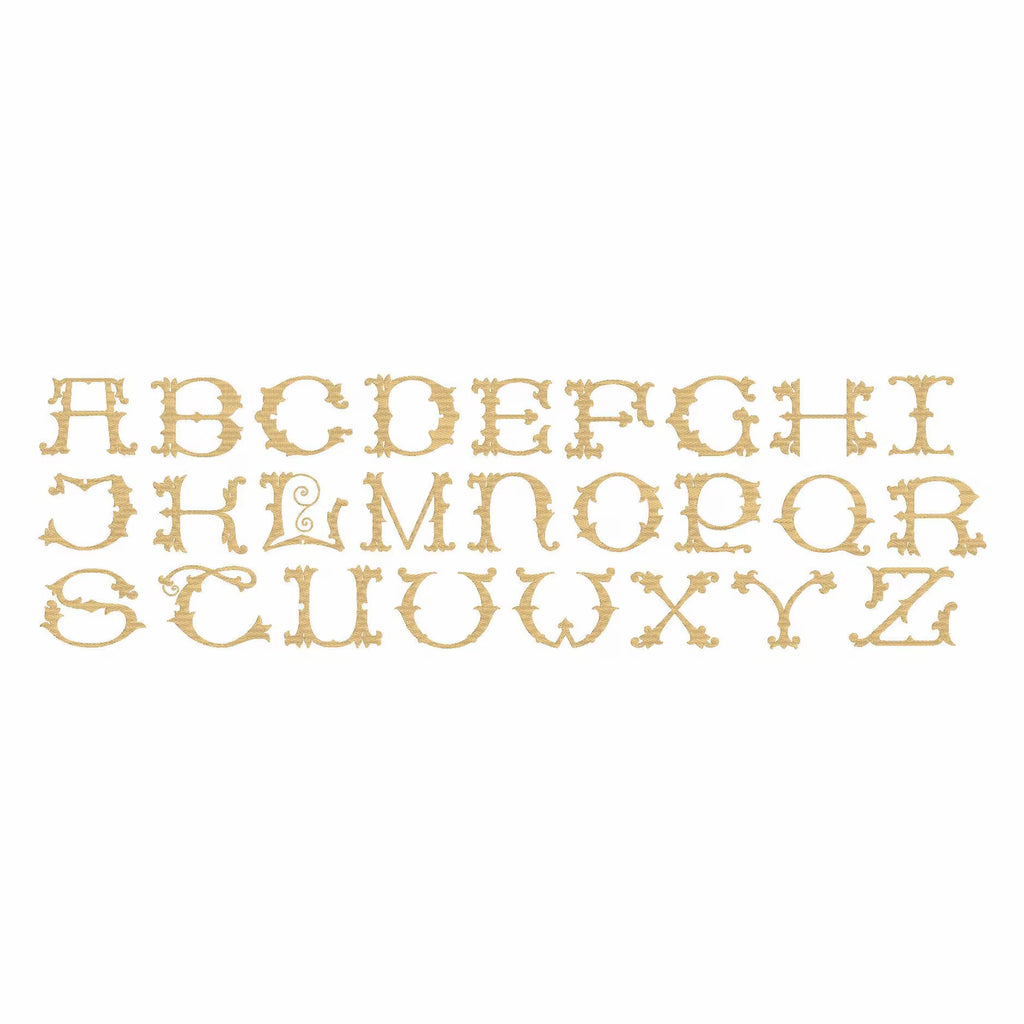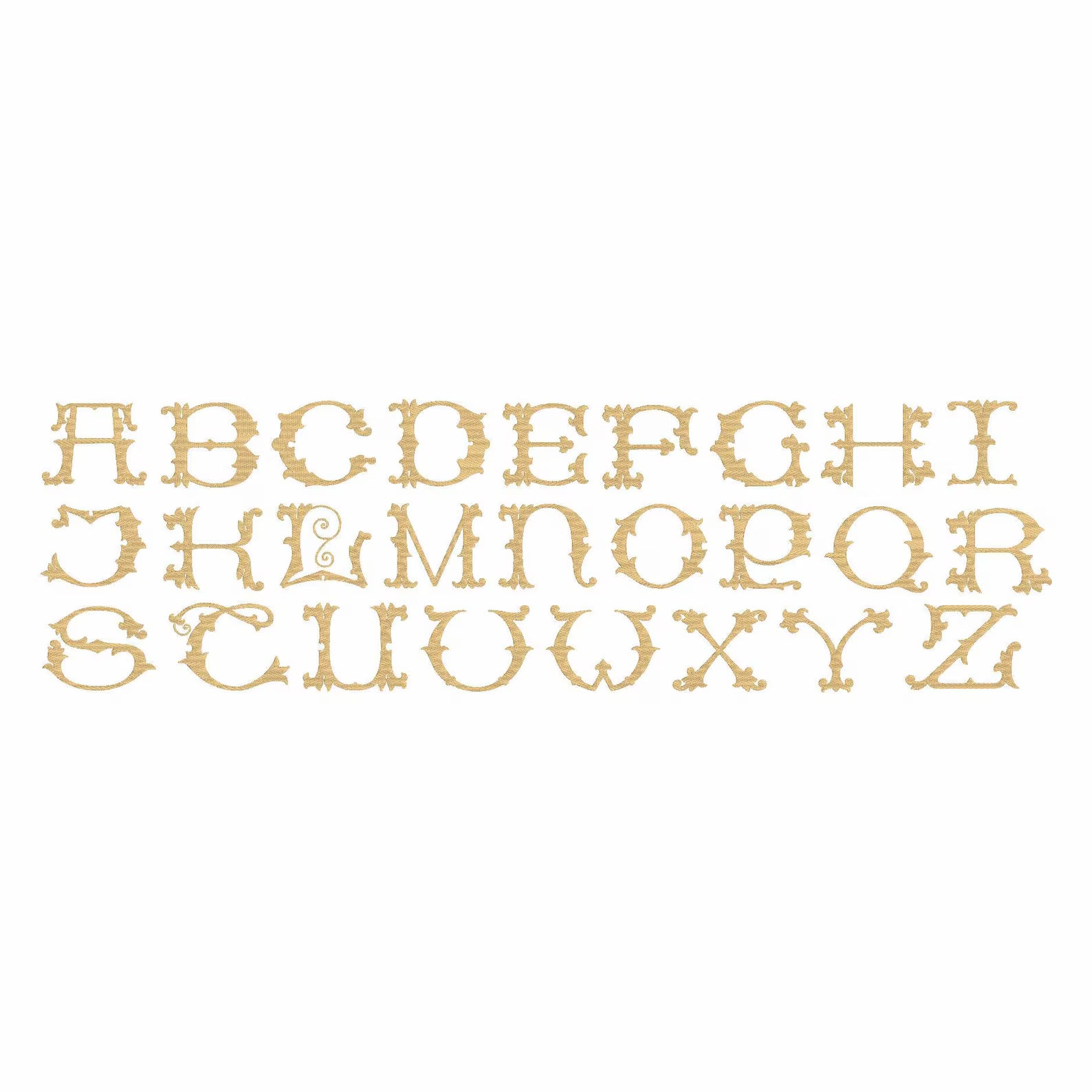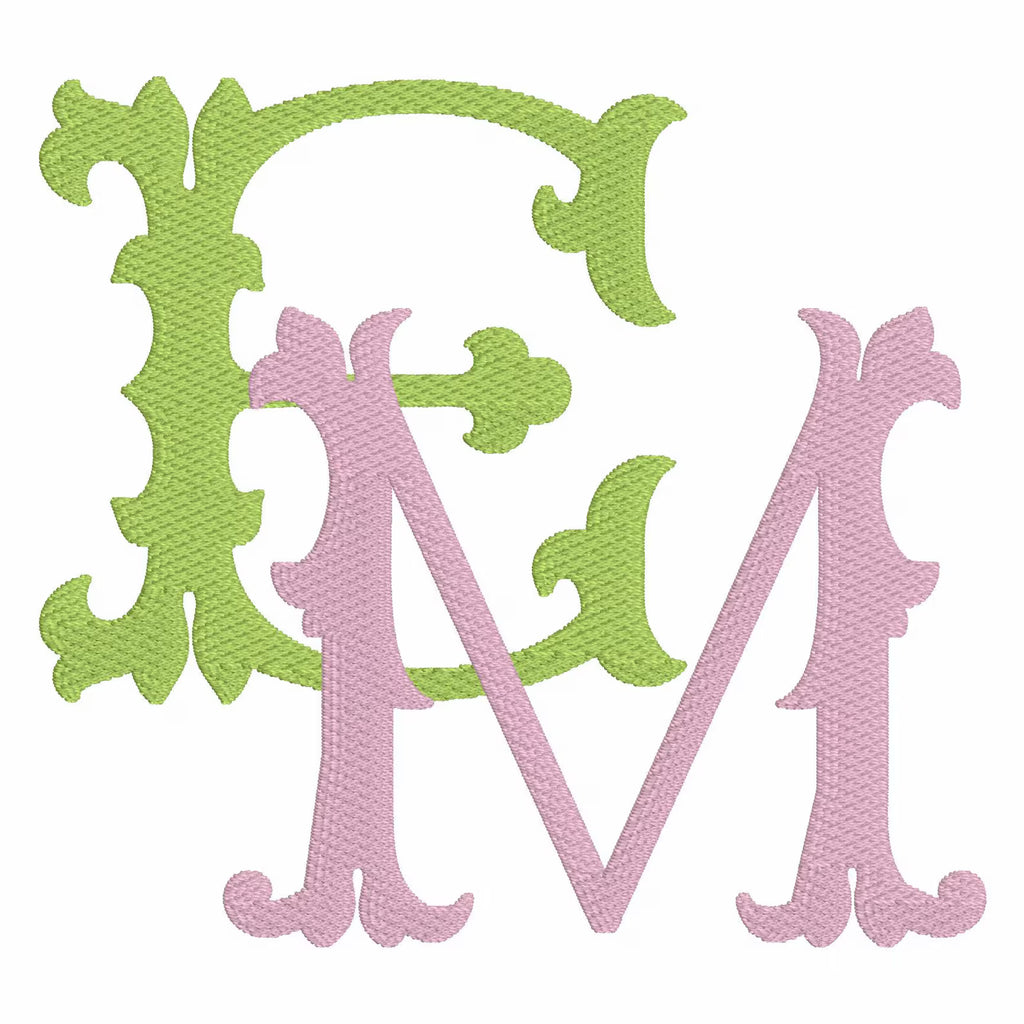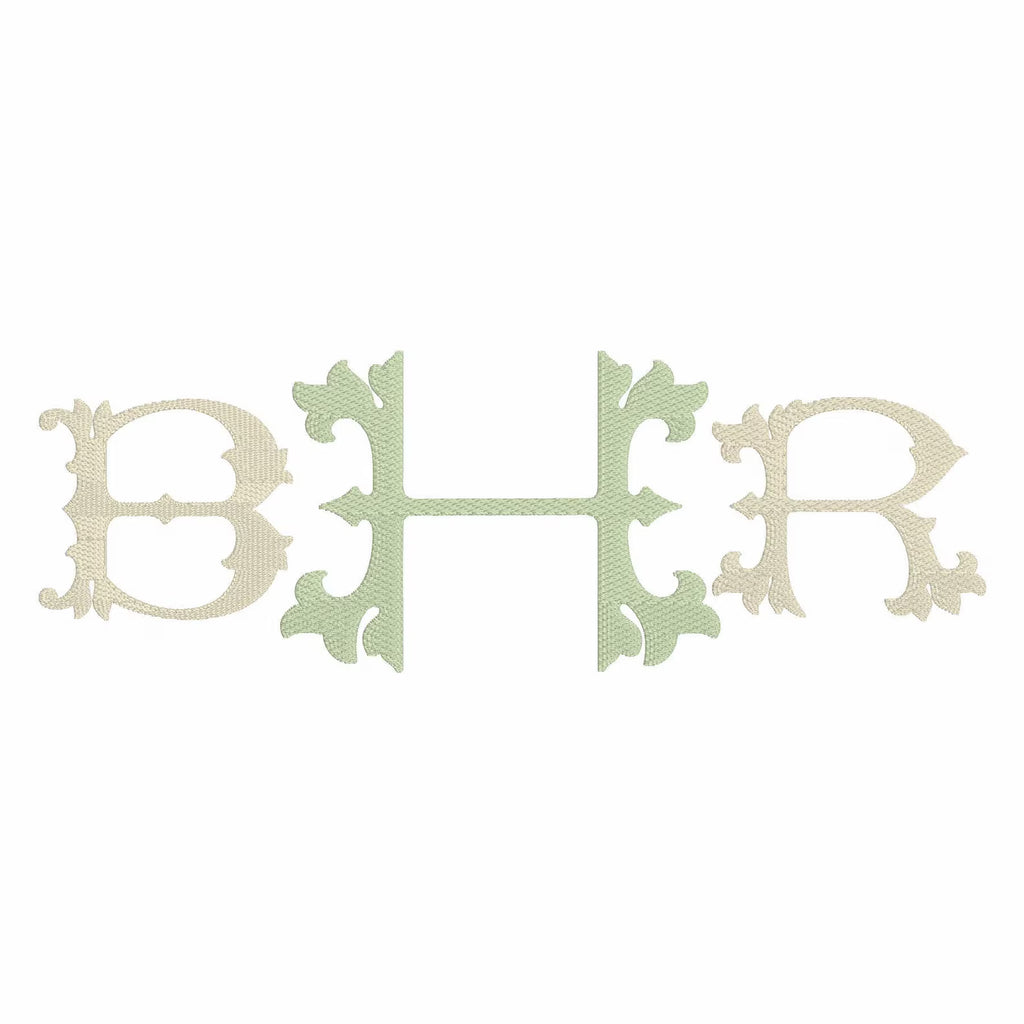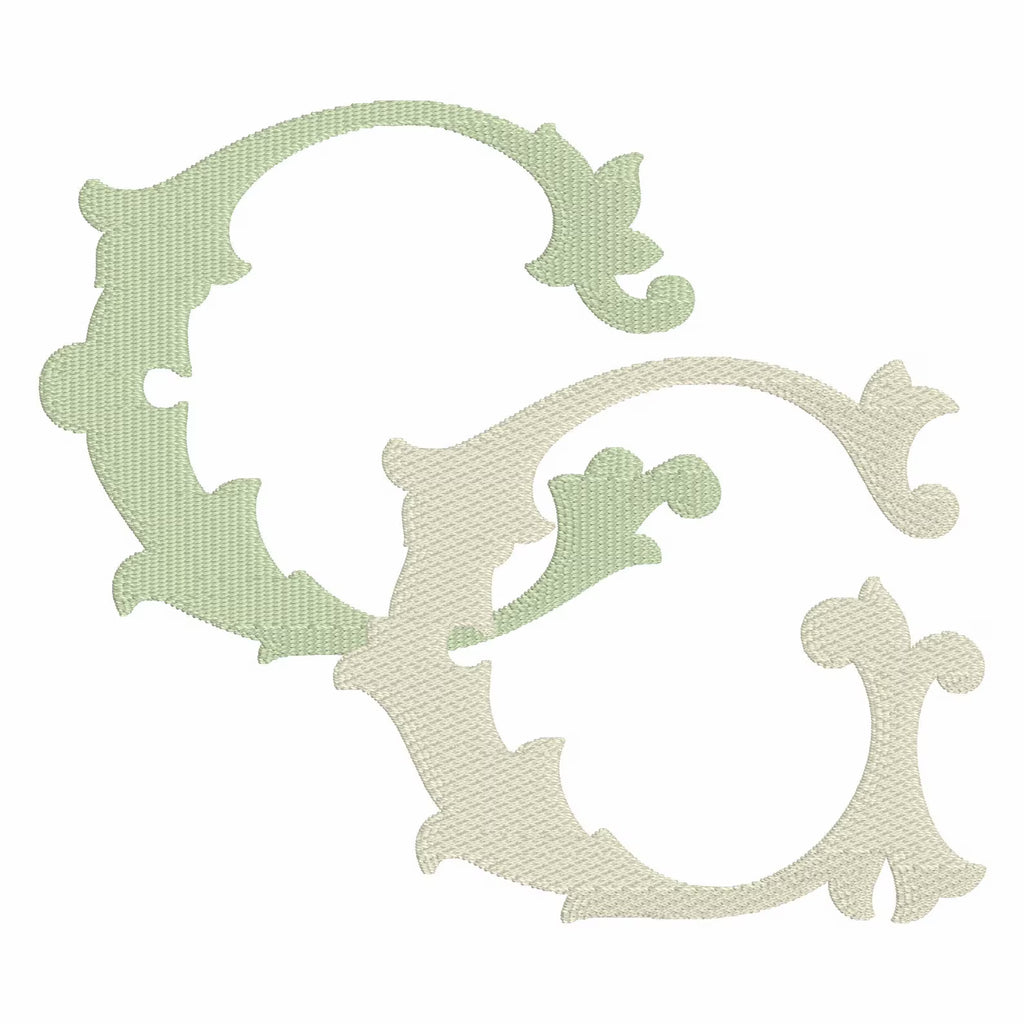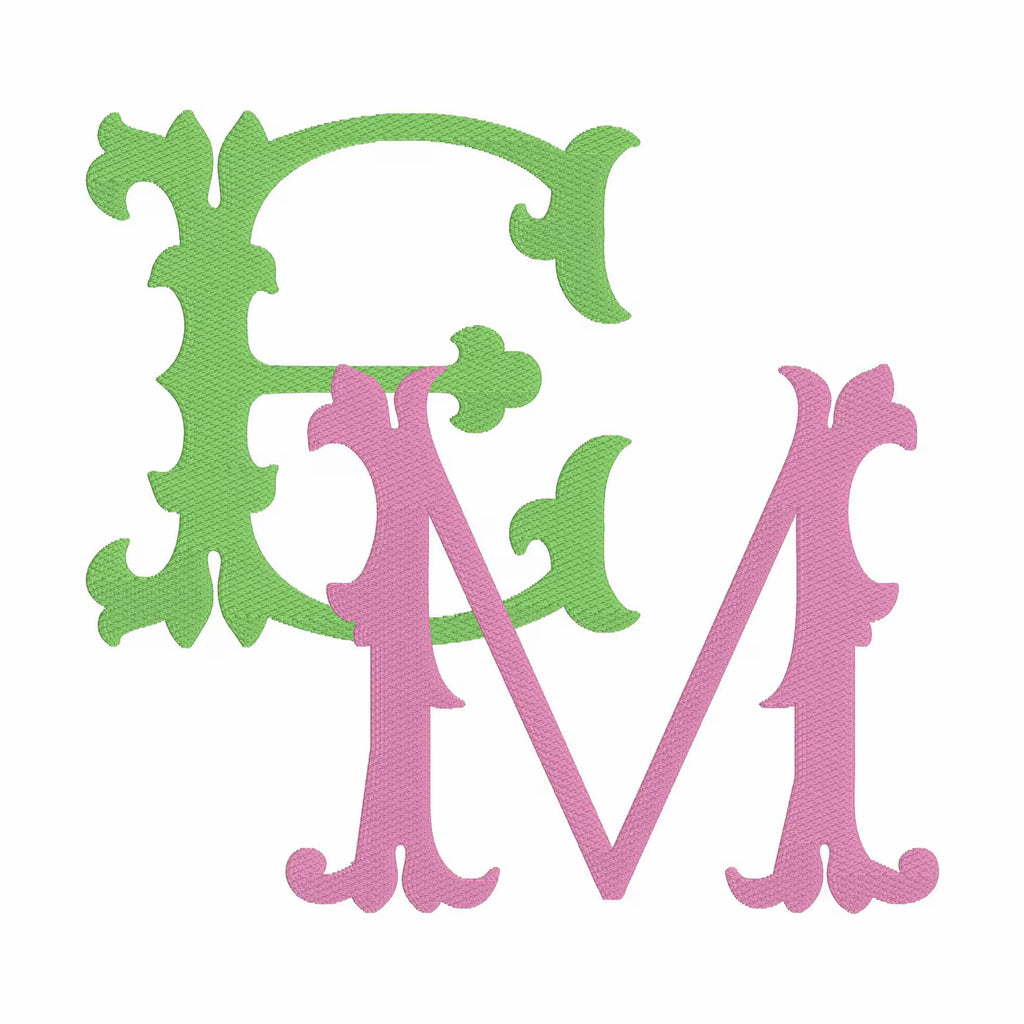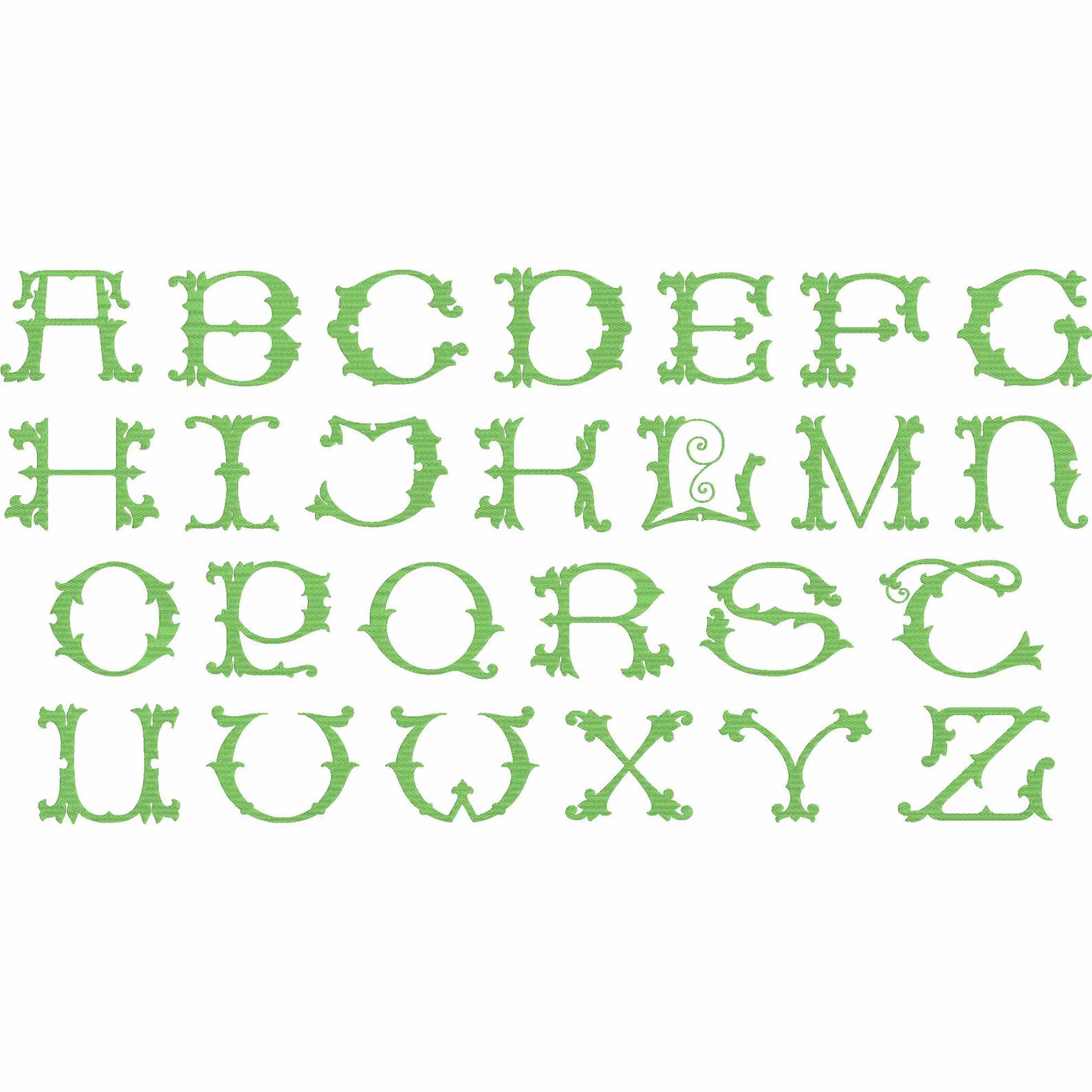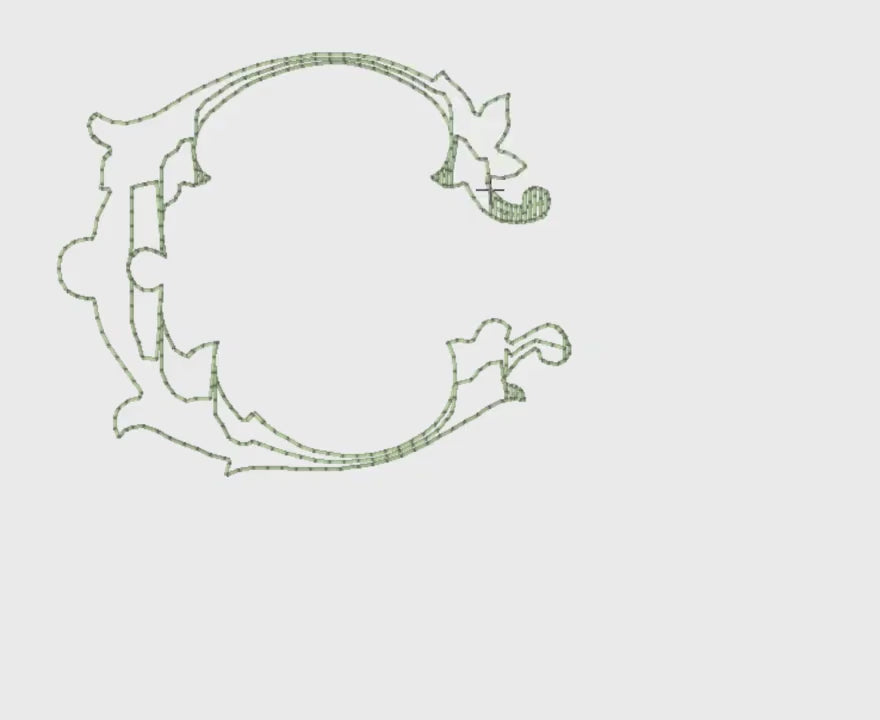
The Vintage Wedding Font is a high end font, not found with most sellers! It's classic style is timeless. I love customizing beautiful unique fonts perfect for creators!
Default size for each letter is approx. 3" x 3.5" includes in letters A-Z in all formats
Each letter's default size varies but will all fall at approx. 3" tall
ex. C 3 9/16w x 2 15/16"h